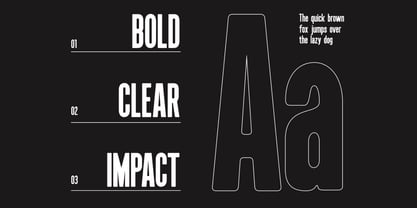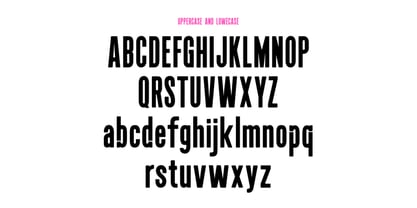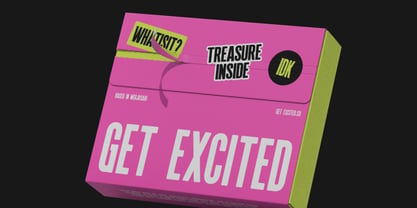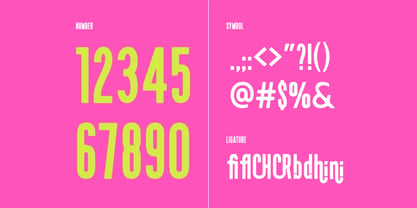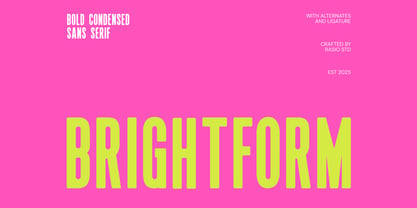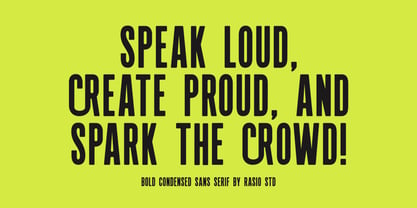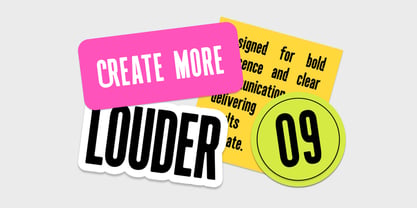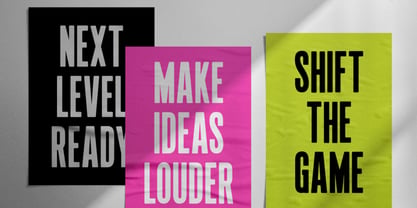
Brightform
by Rasio Studio
The Brightform Font Family was designed by Fajar Indra and published by Rasio Studio. Brightform contains 1 styles. More about this family
Brightform is a bold condensed sans serif typeface built with tall proportions, strong vertical strokes, and compact spacing for maximum visual impact. The clean structure and tight width create an energetic, modern look that stands out clearly in headlines and large compositions. Relevance and Use Cases is perfect for posters, sports branding, streetwear graphics, advertising headlines, packaging, event promotions, social media banners, logos, and modern marketing materials that need bold, space-saving, and eye-catching typography.
Designers: Fajar Indra
Current Foundry: Rasio Studio